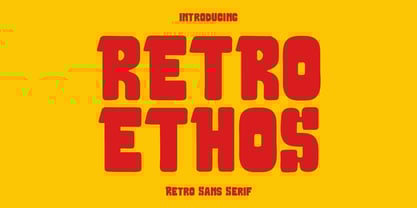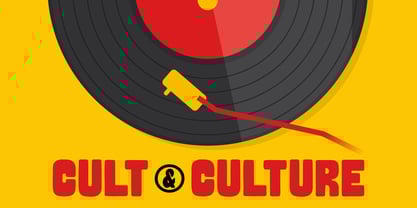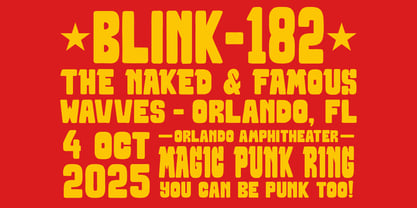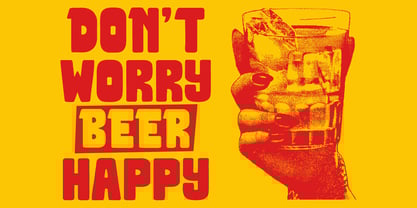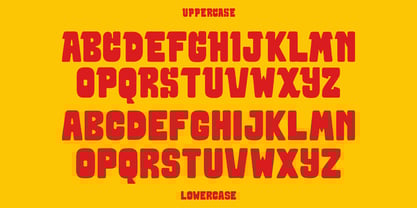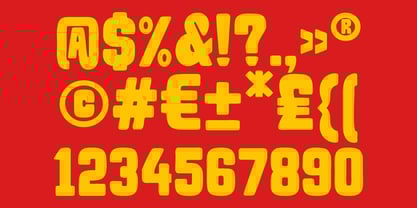
WR Retro Ethos
by WriType
The WR Retro Ethos Font Family was designed by Wira Pras and published by WriType. WR Retro Ethos contains 2 styles and family package options. More about this family
WR Retro Ethos is a bold hand-drawn display font with a strong retro attitude. Chunky, expressive, and full of character, ideal for eye-catching headlines, branding, and creative visuals. Thank you for buying my product, I hope you are satisfied with this product and can help for your needs If you have more detailed questions or have difficulties, please email me Thanks, WriType
Designers: Wira Pras
Foundry: WriType